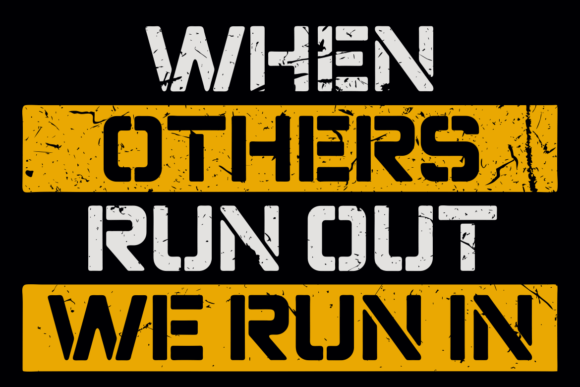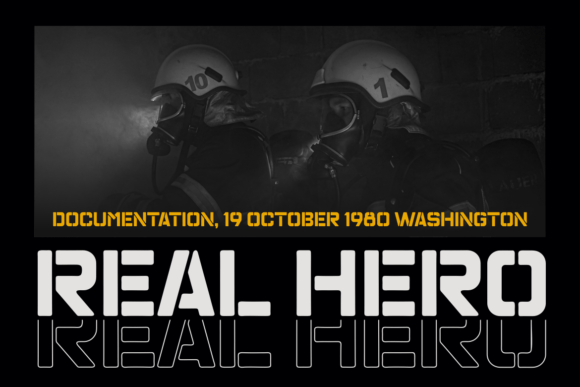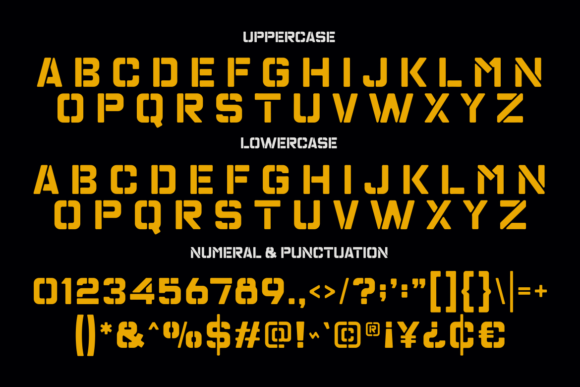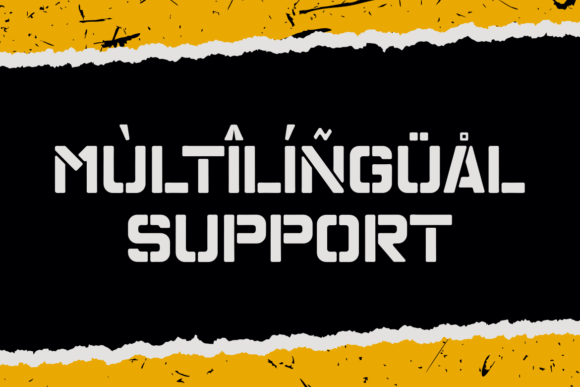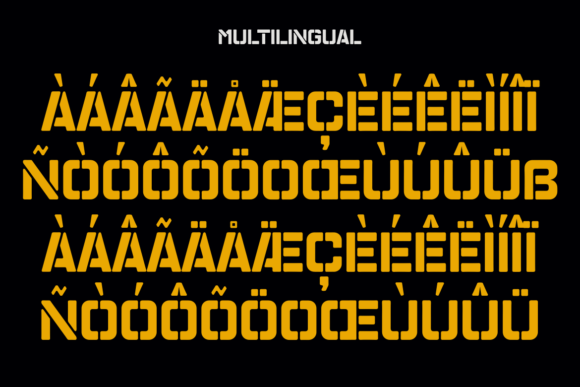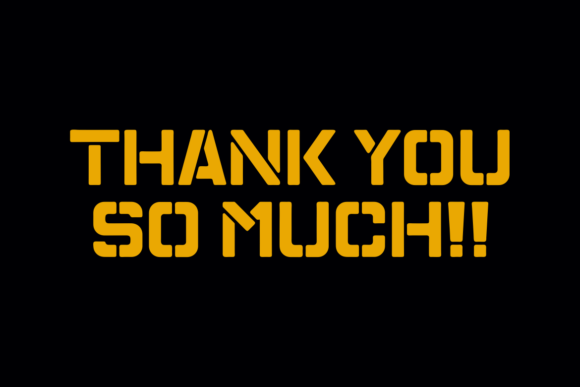
Damkar Font: Unleashing the Power of Stencil Typography
In the realm of typography, fonts play a crucial role in shaping the visual identity of a design. Among the numerous font styles available, Damkar Font stands out for its distinctive and bold appearance. This font is characterized by its unique typography style, which features holes or “cutouts” present in each letter and symbol, making it a popular choice among designers and crafters.
The Distinctive Features of Damkar Font
The primary hallmark of Damkar Font is the presence of gaps or apertures around the edges of the characters. This font belongs to the stencil font category, which is known for its rugged and industrial look. The cutouts in each letter and symbol give the font a distinctive appearance, making it easily recognizable and memorable.
Purposes and Applications of Damkar Font
Damkar Font serves various purposes, particularly in designs that require a special appearance with a robust, assertive, and characteristic touch. The font’s unique style makes it an excellent choice for:
- Headings and Titles: Damkar Font is perfect for creating bold and eye-catching headings and titles that grab attention.
- Logos and Branding: The font’s distinctive style makes it an excellent choice for logos and branding, as it can help create a strong and memorable visual identity.
- Poster and Flyer Design: Damkar Font can add a touch of ruggedness and industrial chic to poster and flyer designs, making them stand out.
- Military and Industrial Designs: The font’s stencil style makes it a popular choice for military and industrial designs, where a strong and rugged appearance is required.
Benefits of Using Damkar Font
The use of Damkar Font offers several benefits, including:
- Unique Visual Identity: The font’s distinctive style helps create a unique visual identity that sets your design apart from others.
- Easy Recognition: The bold and rugged appearance of Damkar Font makes it easily recognizable, even from a distance.
- Flexibility: The font can be used in various design contexts, from headings and titles to logos and branding.
- Strong Impression: Damkar Font can convey a strong impression, making it an excellent choice for designs that require a bold and assertive appearance.
Tips for Using Damkar Font Effectively
To get the most out of Damkar Font, follow these tips:
- Use it Sparingly: Due to its bold and rugged appearance, it’s best to use Damkar Font sparingly, such as for headings and titles.
- Pair it with Other Fonts: Pair Damkar Font with other fonts to create a visually appealing contrast and add depth to your design.
- Experiment with Colors: Experiment with different colors to find the perfect combination that complements the font’s bold and rugged appearance.
Damkar Font is a powerful and distinctive font that can add a touch of ruggedness and industrial chic to your designs. Its unique typography style, characterized by holes or “cutouts” present in each letter and symbol, makes it an excellent choice for designs that require a special appearance with a robust, assertive, and characteristic touch. By understanding the font’s features, applications, and benefits, designers and crafters can unlock the full potential of Damkar Font and create stunning designs that leave a lasting impression.